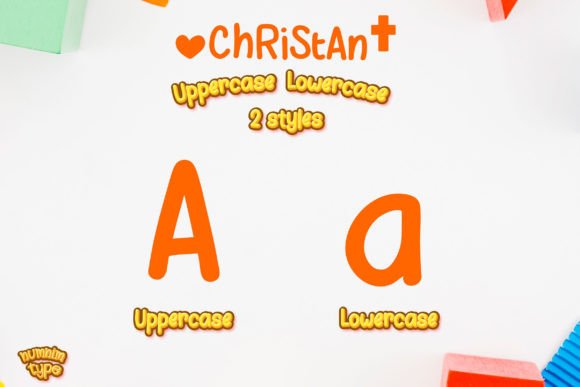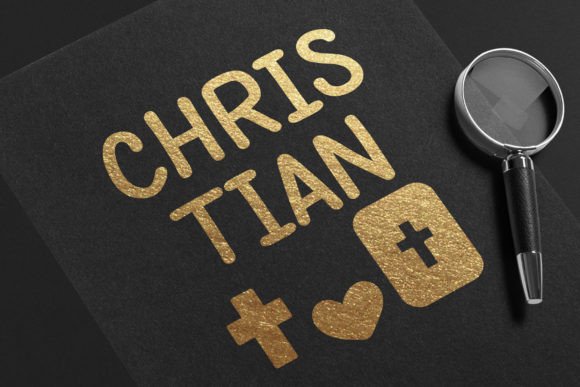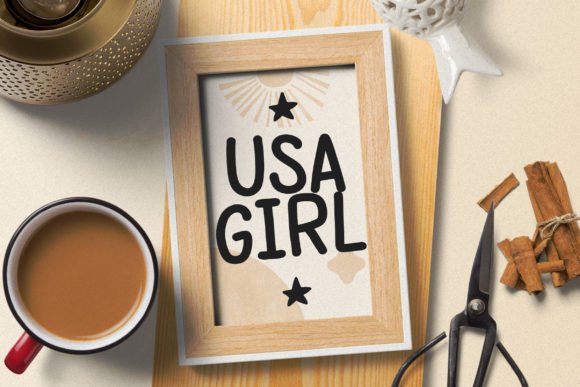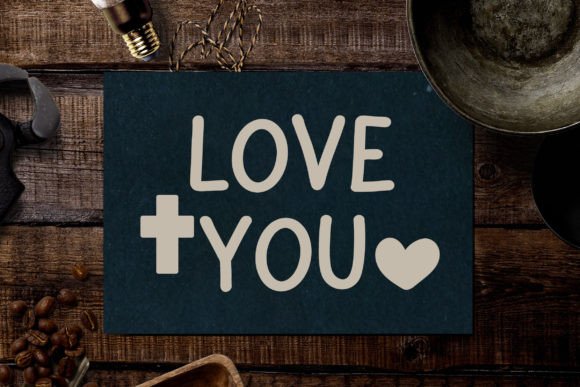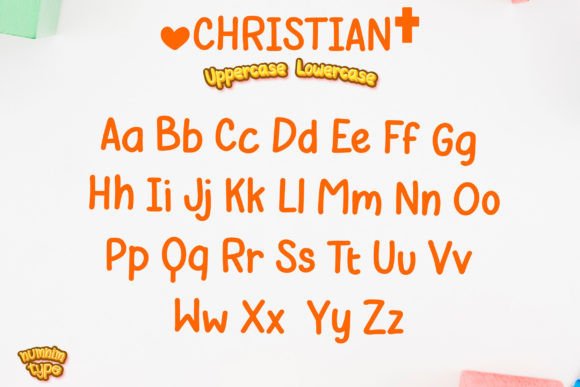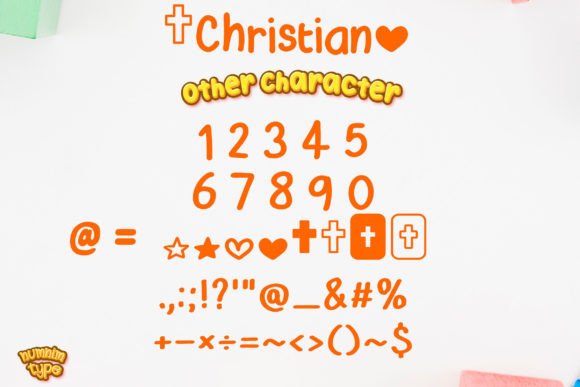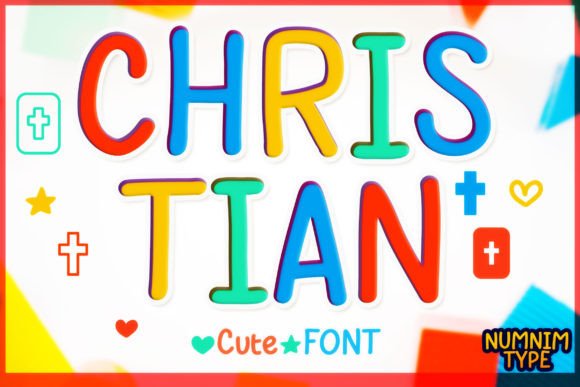
Introducing Christian Font: The Perfect Choice for Creative Projects
Are you a designer or crafter looking for a unique and playful font to elevate your creative projects? Look no further than Christian Font, a beautifully crafted display font that’s perfect for a wide range of applications. In this article, we’ll take a closer look at the features and benefits of Christian Font, and explore how it can add a touch of personality and whimsy to your designs.
A Cute and Uniquely Crafted Font
Christian Font is a one-of-a-kind display font that’s been carefully designed to bring a smile to your face. Its fun and playful characters make it the perfect choice for projects that require a touch of personality and whimsy. Whether you’re creating stickers, mugs, t-shirts, ornaments, or Fall event cards, Christian Font is sure to impress.
One of the best things about Christian Font is its versatility. Its unique and playful design makes it perfect for a wide range of applications, including:
- Stickers: Add a personal touch to your stickers with Christian Font’s fun and playful characters.
- Mugs: Create eye-catching mugs that are sure to stand out with Christian Font.
- T-shirts: Design unique and stylish t-shirts that will make a statement with Christian Font.
- Ornaments: Add a touch of personality to your ornaments with Christian Font’s whimsical design.
- Fall event cards: Create beautiful and festive Fall event cards with Christian Font.
Why Choose Christian Font?
So why choose Christian Font for your next project? Here are just a few reasons:
- Unique and playful design.
- Perfect for a wide range of applications.
Tips and Tricks for Using Christian Font
Here are a few tips and tricks for getting the most out of Christian Font:
- Use Christian Font in combination with other fonts to create unique and complex designs.
- Don’t be afraid to get creative and try new things with Christian Font.
In conclusion, Christian Font is a unique and playful display font that’s perfect for designers and crafters looking to add a touch of personality and whimsy to their creative projects. With its fun and playful characters, PUA encoding, and versatility, Christian Font is the perfect choice for a wide range of applications. So why wait? Download Christian Font today and start creating!